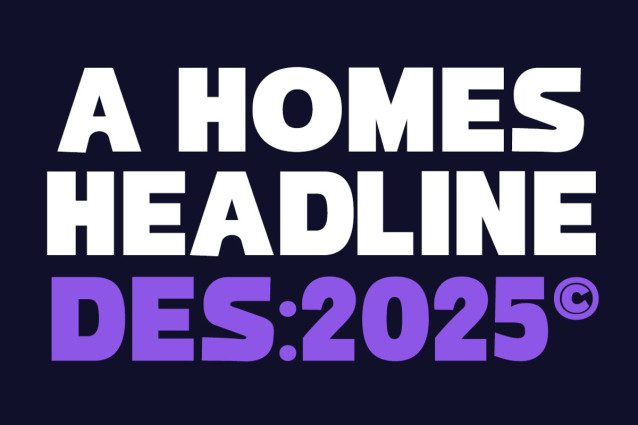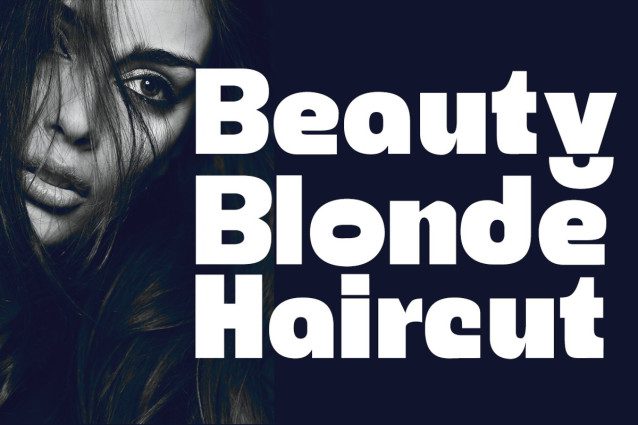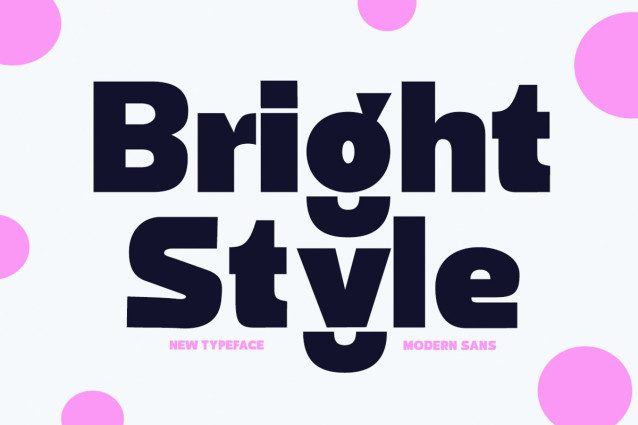
Bring Style Font
Bring Style Font is a luxurious yet elegant Sans font. Its contemporary style will be a great choice for creating any design with a classy style that maintains a calm and sophisticated style.